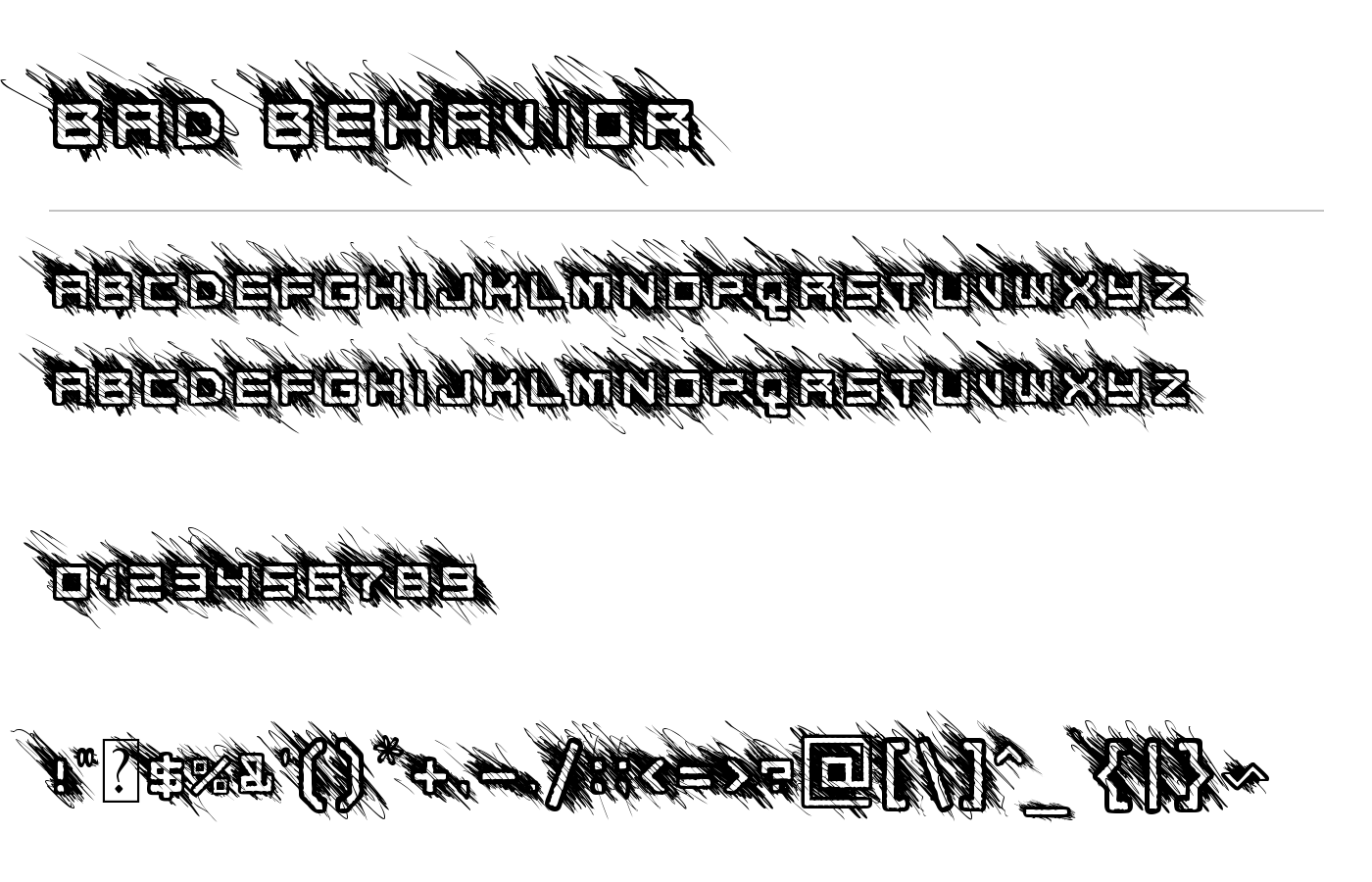
Bad Behaviour Font is a bold, futuristic sans serif typeface with a striking glitch effect that gives it a dynamic, edgy vibe. Its blocky, uniform letters combined with the chaotic, jagged overlays make it perfect for designs that want to convey energy, rebellion, or a tech-inspired aesthetic. This font works especially well for eye-catching headlines, posters, and branding that aims to stand out with a modern, disruptive style.
Bad Behaviour Font